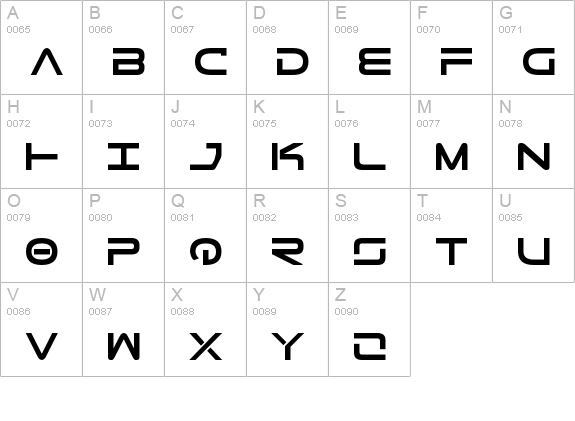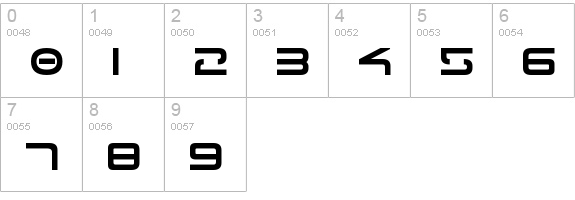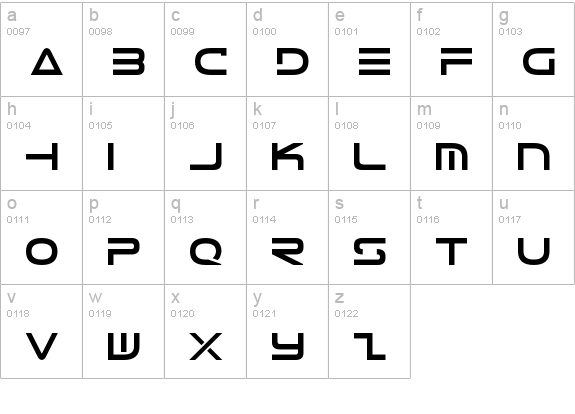
Tele-Marines Bold Font Details
Tele-Marines Bold is a strong, high-contrast variant in the Tele typeface family \xE2\x80\x94 well suited to headlines, attention-grabbing titles, and strong calls-to-action.
Introducing Tele-Marines Bold, a stunning display font that exudes power and confidence. With its bold and commanding presence, this font is perfect for making a bold statement in any design project. Whether you're designing a logo, crafting a poster, or creating eye-catching headlines, Tele-Marines Bold will grab the attention of your audience and leave a lasting impression. What sets Tele-Marines Bold apart from other fonts is its unique combination of strength and elegance. Each letter is meticulously crafted to showcase its boldness, while maintaining a sense of sophistication and refinement. The sharp edges and strong lines give the font a sense of power, while the delicate curves add a touch of elegance. And the best part? Tele-Marines Bold is available for free! That's right, you can easily download this incredible font at FontsMarket.com without spending a dime. We believe that great design should be accessible to everyone, and that's why we're offering Tele-Marines Bold as a free download. So go ahead, unleash your creativity and make a statement with Tele-Marines Bold.